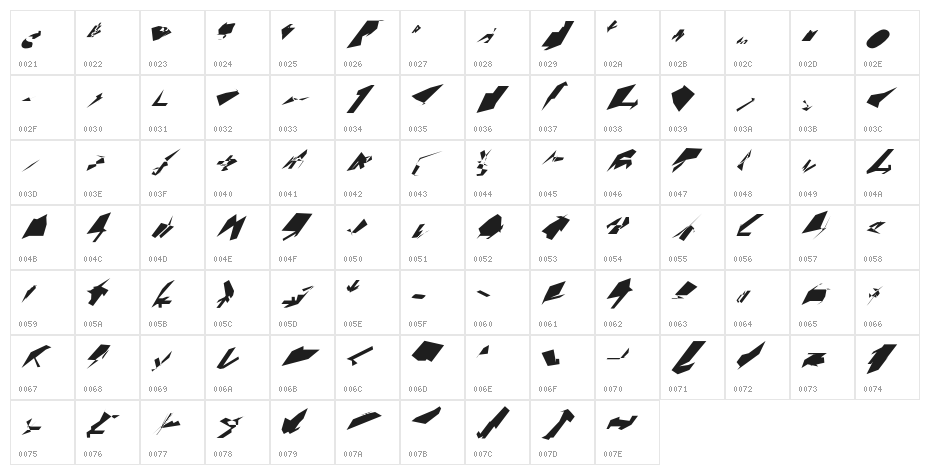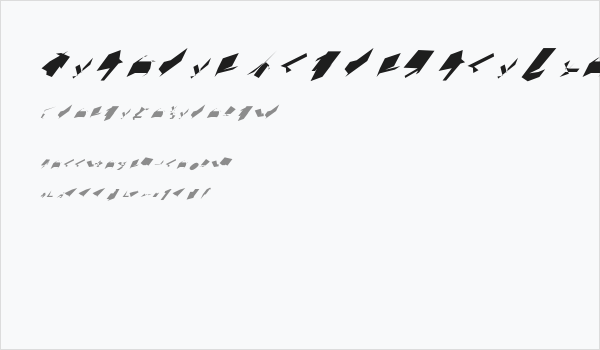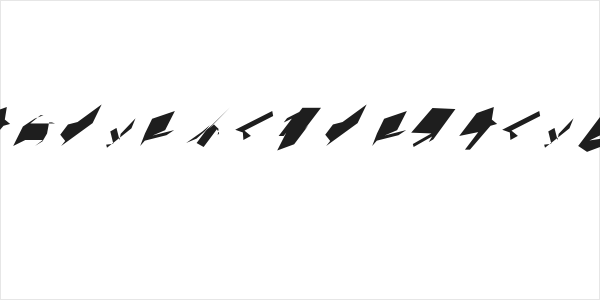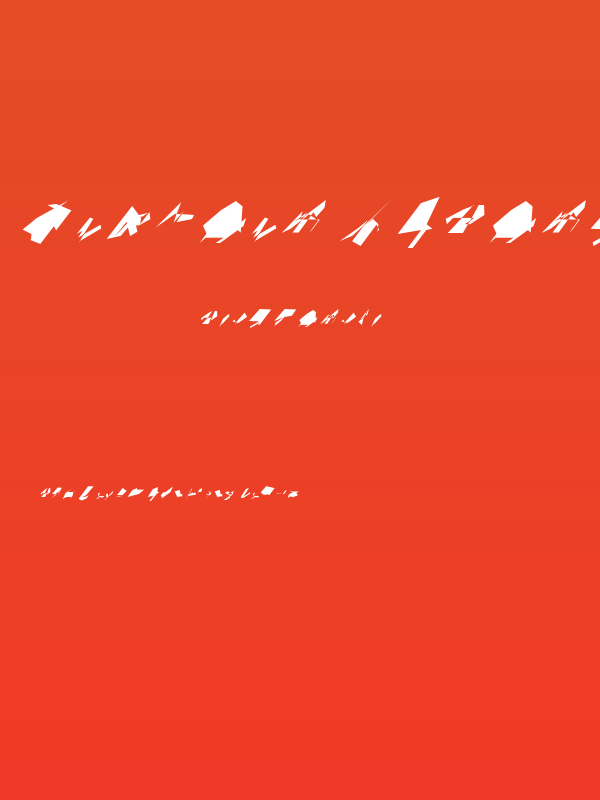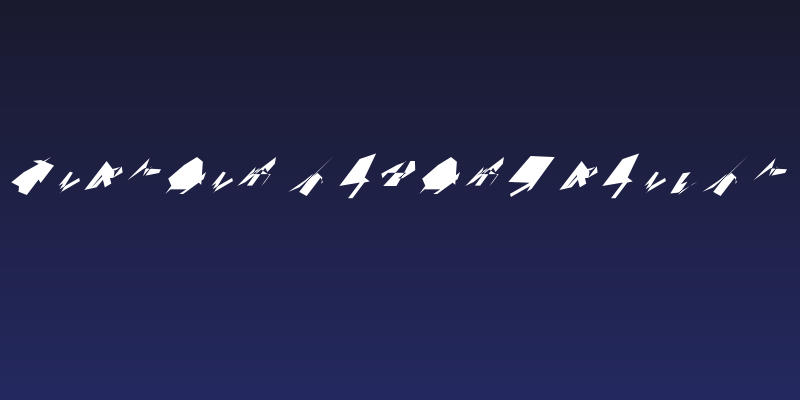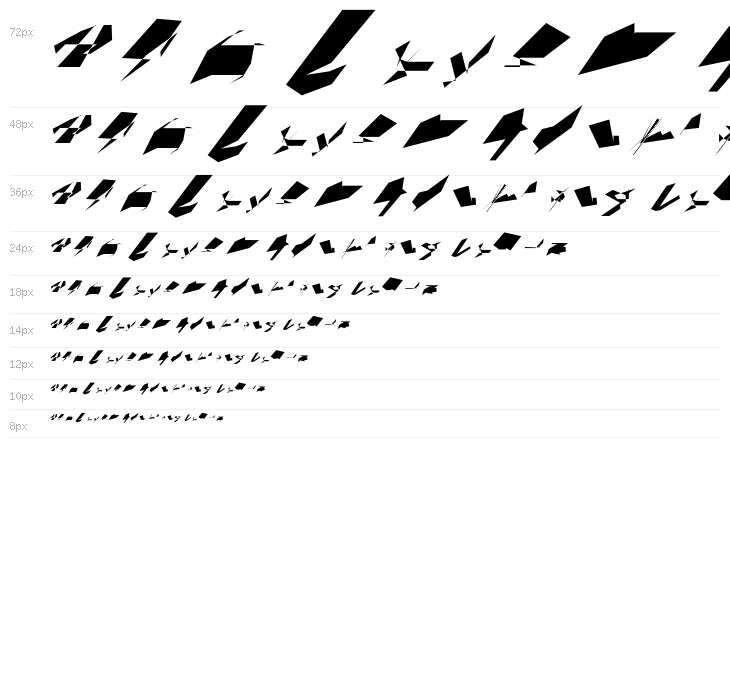
Siberia UltraOblique Font
Siberia UltraOblique Description
This font exhibits a highly abstract and fragmented design, characterized by sharp angles and dynamic shapes. Each character is a unique composition of geometric forms, creating a sense of movement and energy. The style is reminiscent of modern art, with a focus on bold, unconventional aesthetics. The letters are not easily recognizable at first glance, requiring a closer inspection to discern their forms. This font challenges traditional readability, making it more suitable for artistic or decorative purposes rather than practical text applications.
| Use Case | Logos, Artistic designs, Posters |
| Proposed Projects | Ideal for avant-garde art projects, experimental design work, or as a striking element in modern posters and album covers. |